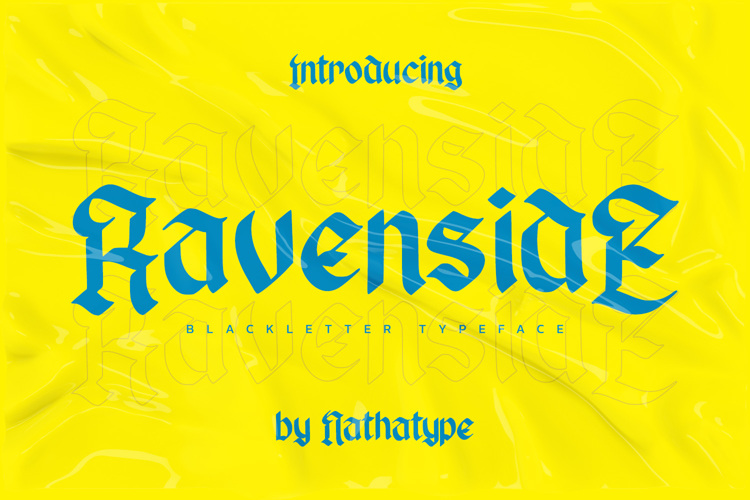
Ravenside Font
NATHA TYPE
Get the special Ravenside font, an amazing blackletter font in classic retro typography providing you every character you need in any retro designs. Besides, this font expresses strength and courage at the same time in your best element of designs.
Features:
• Multilingual Supports
• PUA Encoded
• Numerals and Punctuations =======================================================